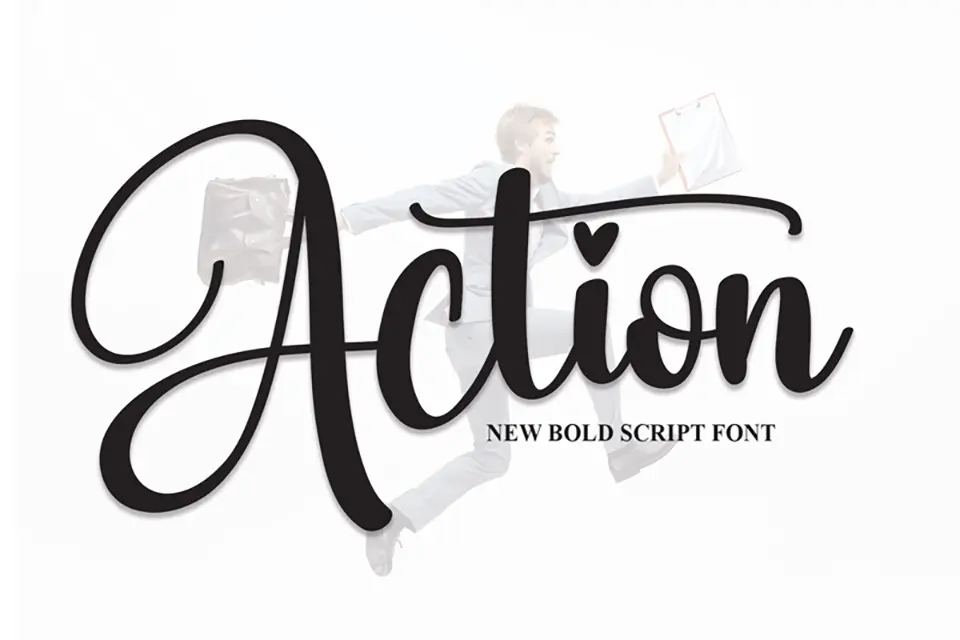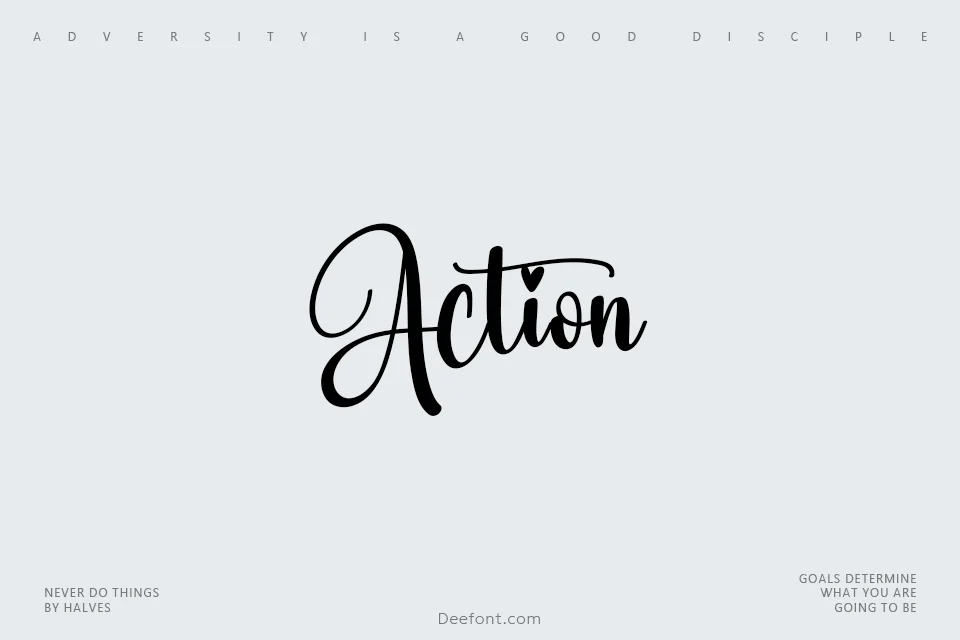
Action Font
Action is a modern calligraphy script font designed with beautiful creative strokes perfect for wall displays, wedding invitations, social media post logos, advertisements, product packaging, product designs, labels, photography, watermarks, invitations, and stationery. This font combines elegant styling with contemporary charm, making it ideal for creative projects that demand sophisticated handwriting aesthetics and professional presentation.